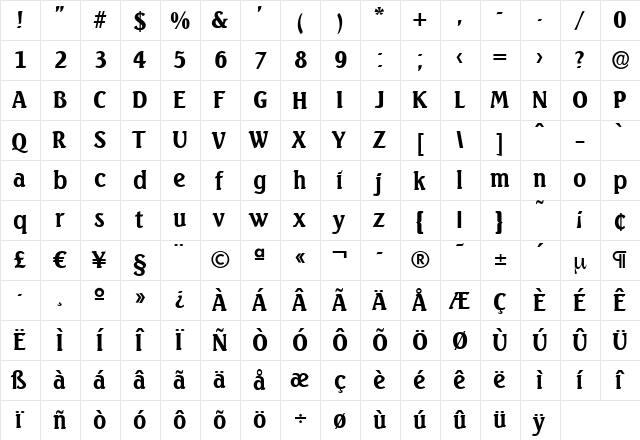
AbelBecker Bold Font Preview
AbelBecker Bold
Design Context for AbelBecker Typeface
AbelBecker takes a measured approach to typography — its balanced proportions and neutral character make it a reliable workhorse for both digital and print work. The heavy weight commands attention and anchors typographic hierarchies.